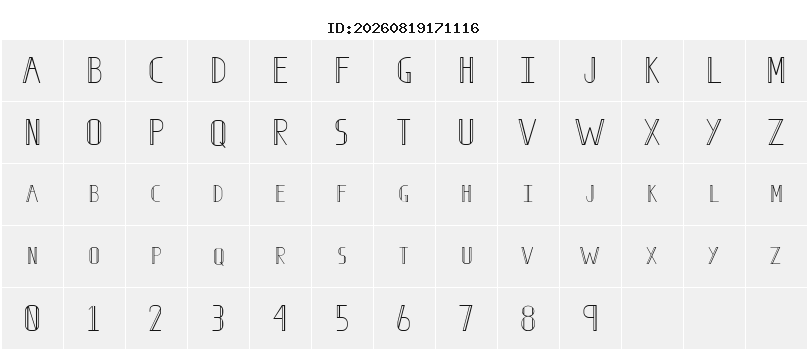
Sick City Preview
• Font Name: Sick City
• Font ID: LeonWallace: 2014
• Full Font Name: Sick City Regular
• PostScript Name: SickCity
• Manufacturer: Leon Wallace
About Sick City.ttf
Sick City.ttf is a modern, elegant sans-serif font designed for ultimate readability and visual harmony. Perfect for branding, headlines, web design, and print materials.